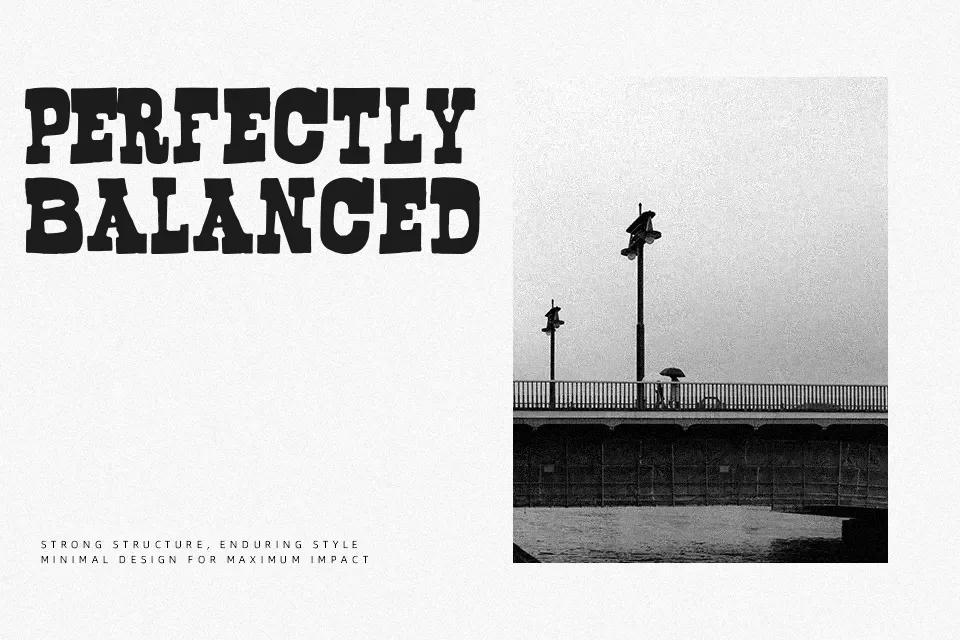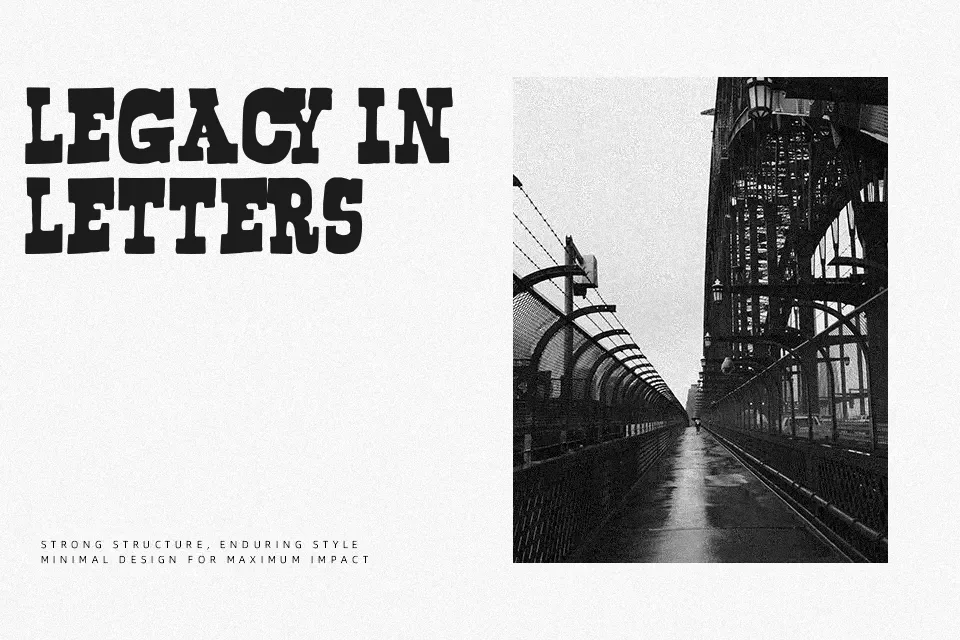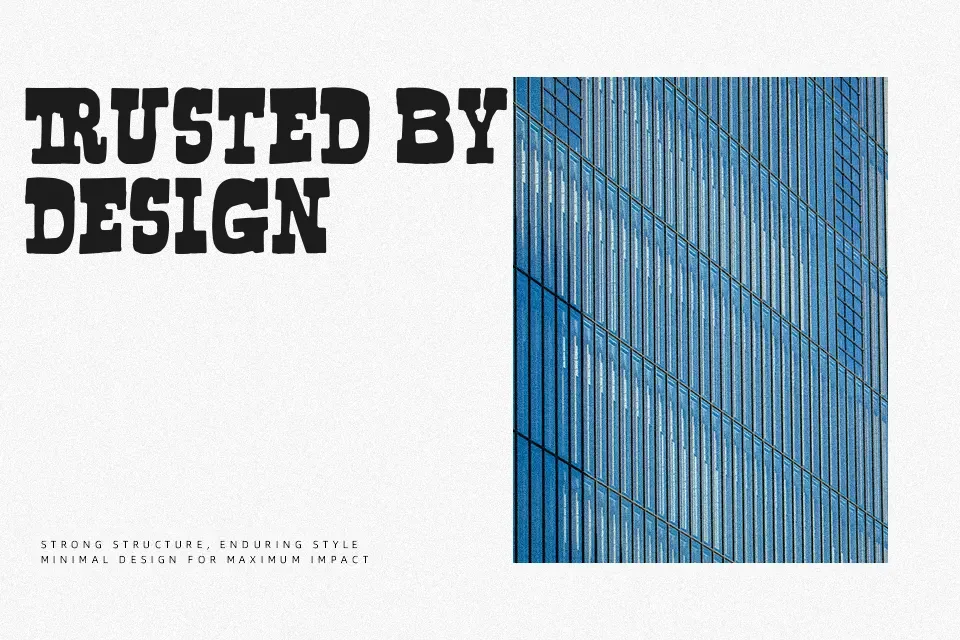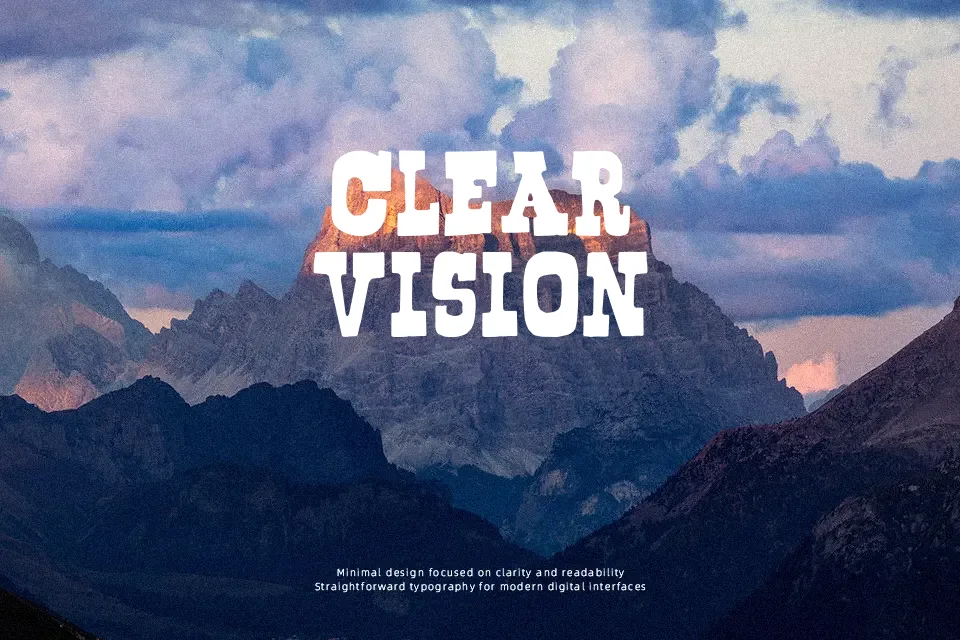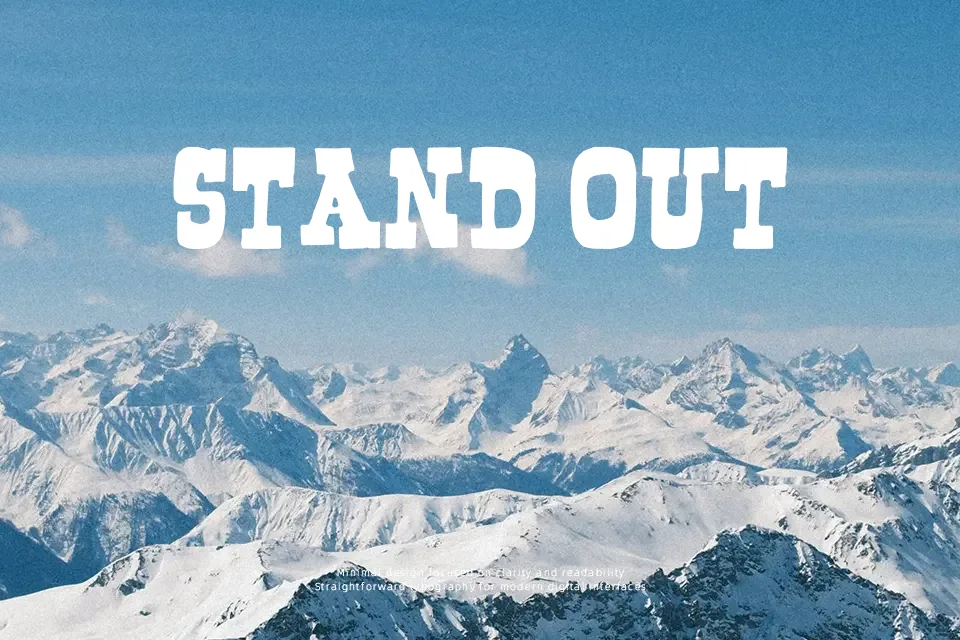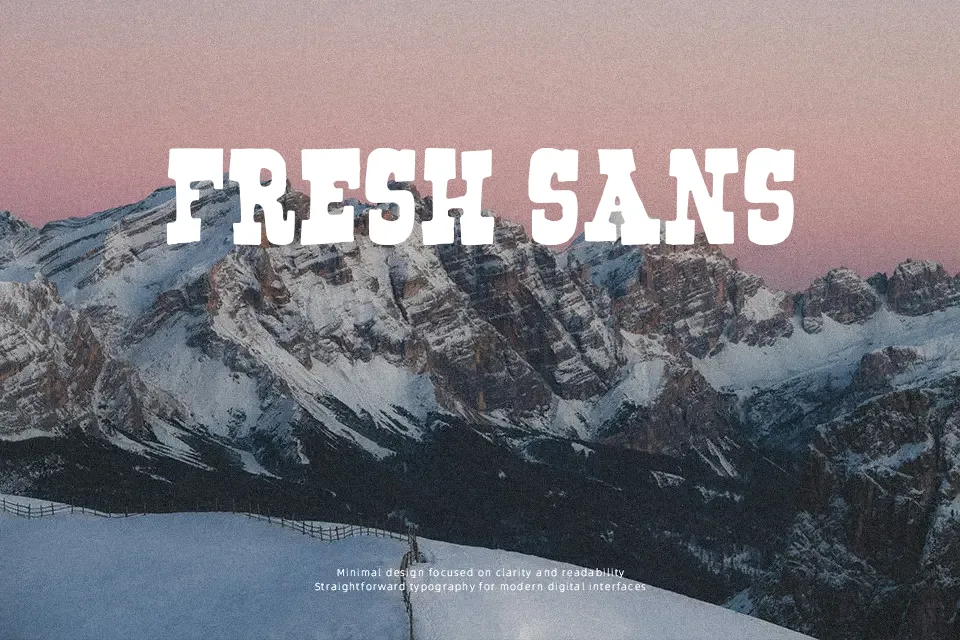
Bogusflow Font
Designed by Spork Thug Typography
Bogusflow Font is a highly characterful display typeface that commands attention through its distinctly chunky and uneven letterforms. Rooted in classic Western typography, its rugged stroke weight and raw edges immediately inject a dose of vintage authenticity into your designs. The spacing feels deliberately tight yet readable, emphasizing its sturdy, rustic aesthetic.
This typeface truly shines in large, impactful scenarios like wanted-style posters, vintage branding, or dramatic headline typography where a bold statement is required. However, its heavy, decorative nature makes it entirely unsuitable for long paragraphs or clean, modern UI design. It pairs beautifully with simple sans serifs when you need a contrasting focal point.
Vintage event posters
Striking headline layouts
Retro film branding
Extended body paragraphs
Minimalist corporate identities
Small digital interfaces
Perfect for film, headline, and packaging, with a bold and decorative style.